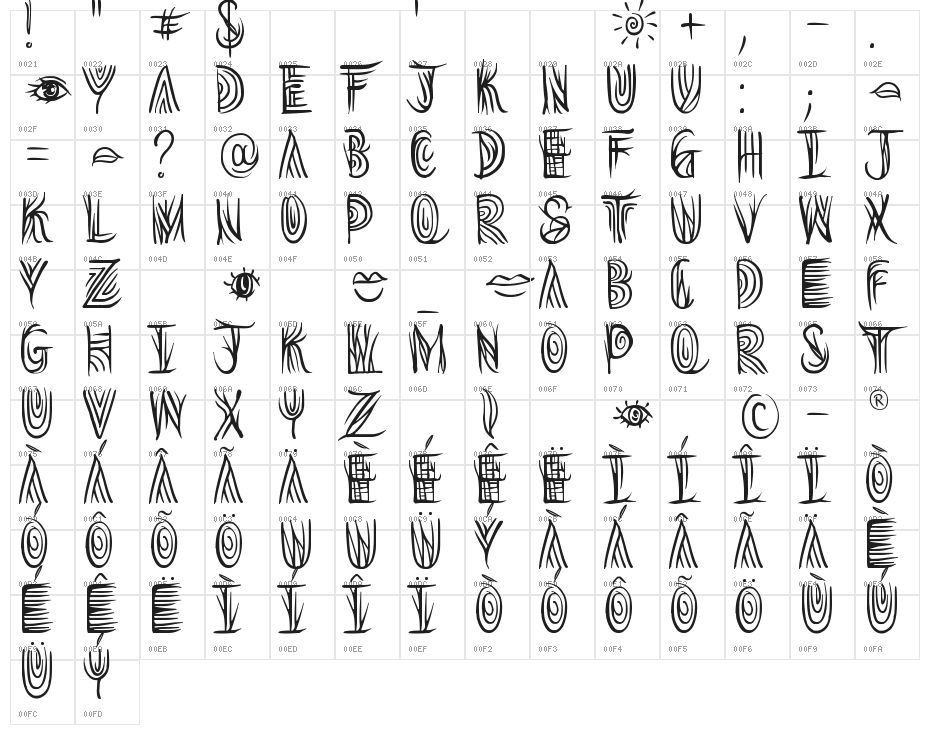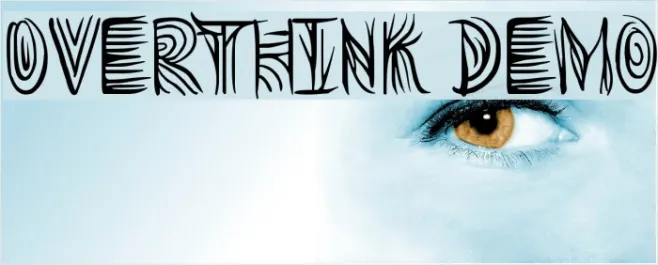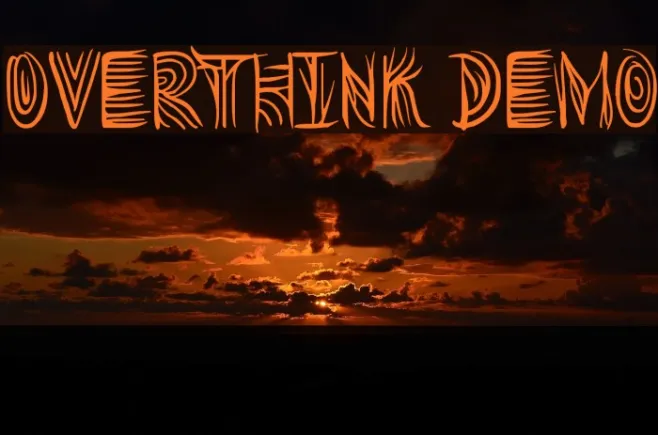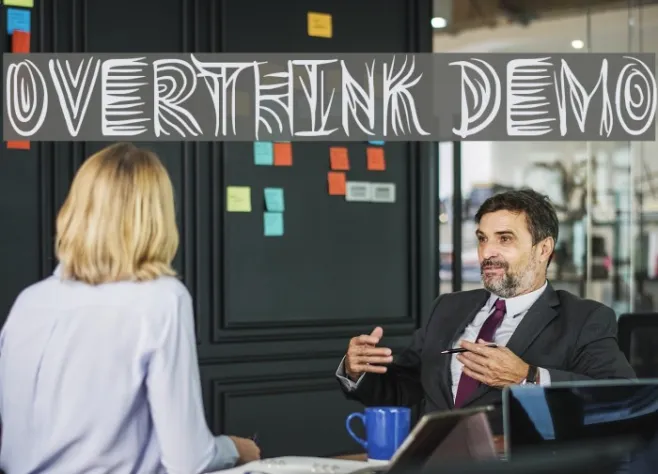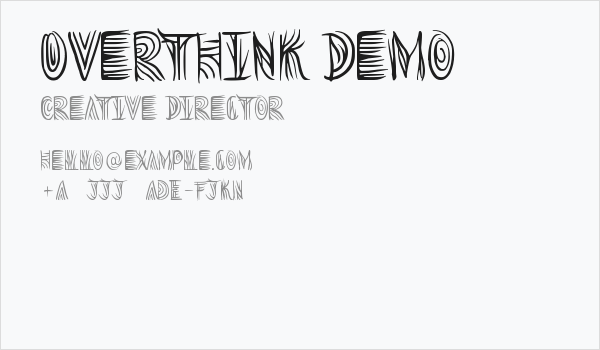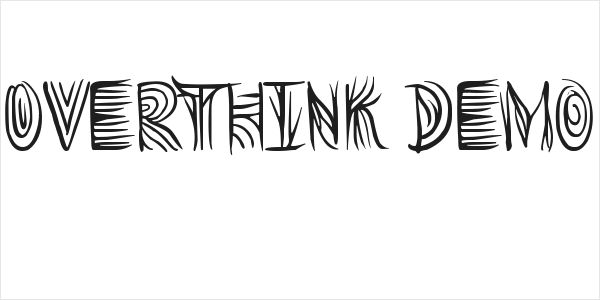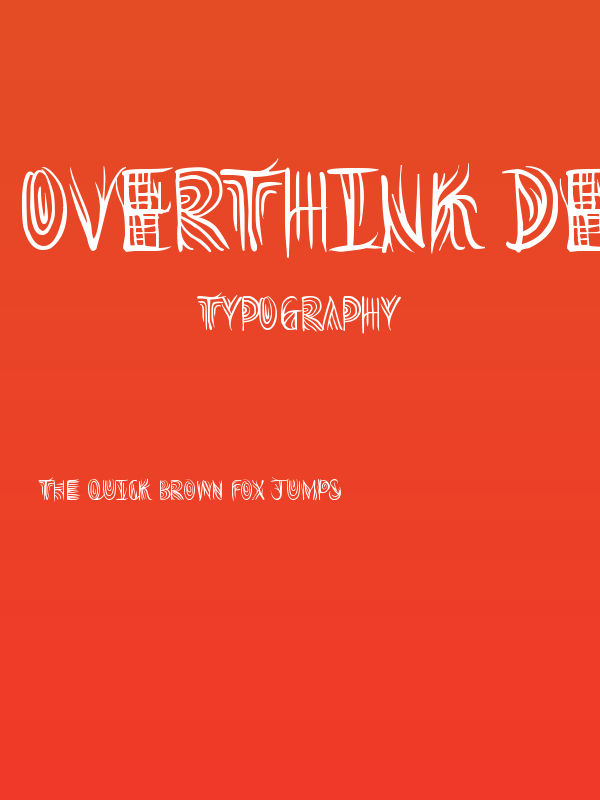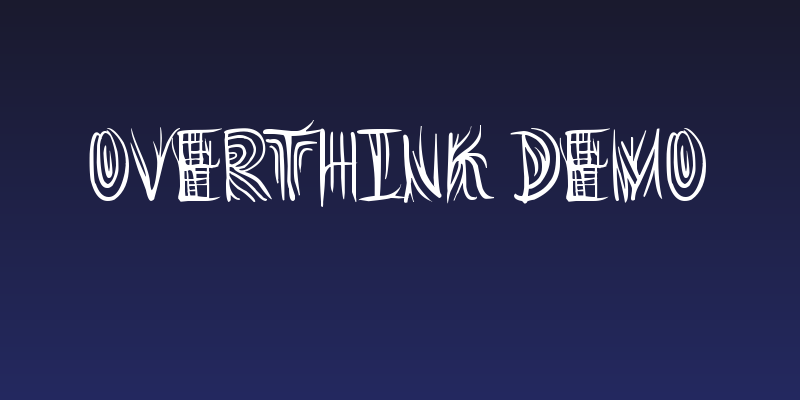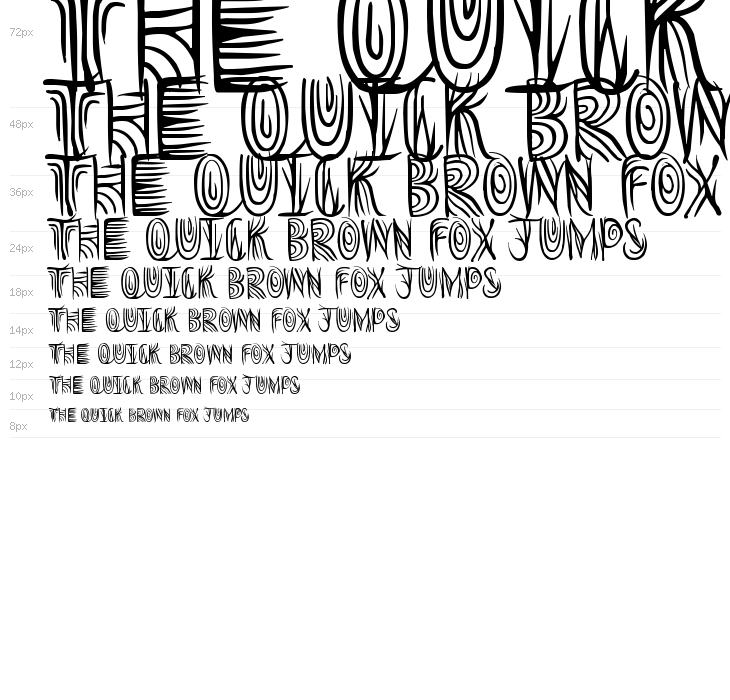
Overthink Demo Font
Overthink Demo Description
This font exhibits a highly decorative and artistic style, characterized by its intricate and swirling line work that gives each letter a unique and dynamic appearance. The uppercase and lowercase letters are crafted with a sense of motion and energy, as if they are in constant transformation. The strokes vary in thickness, creating a high contrast that adds to the visual interest. The overall design is reminiscent of abstract art, with each character appearing as a standalone piece of artwork. The special characters, such as punctuation marks and symbols, are equally elaborate, maintaining the font's cohesive artistic theme.
| Use Case | Logos, Posters, Artistic projects |
| Proposed Projects | Ideal for artistic projects, album covers, posters, and any design work that requires a bold and creative statement. |